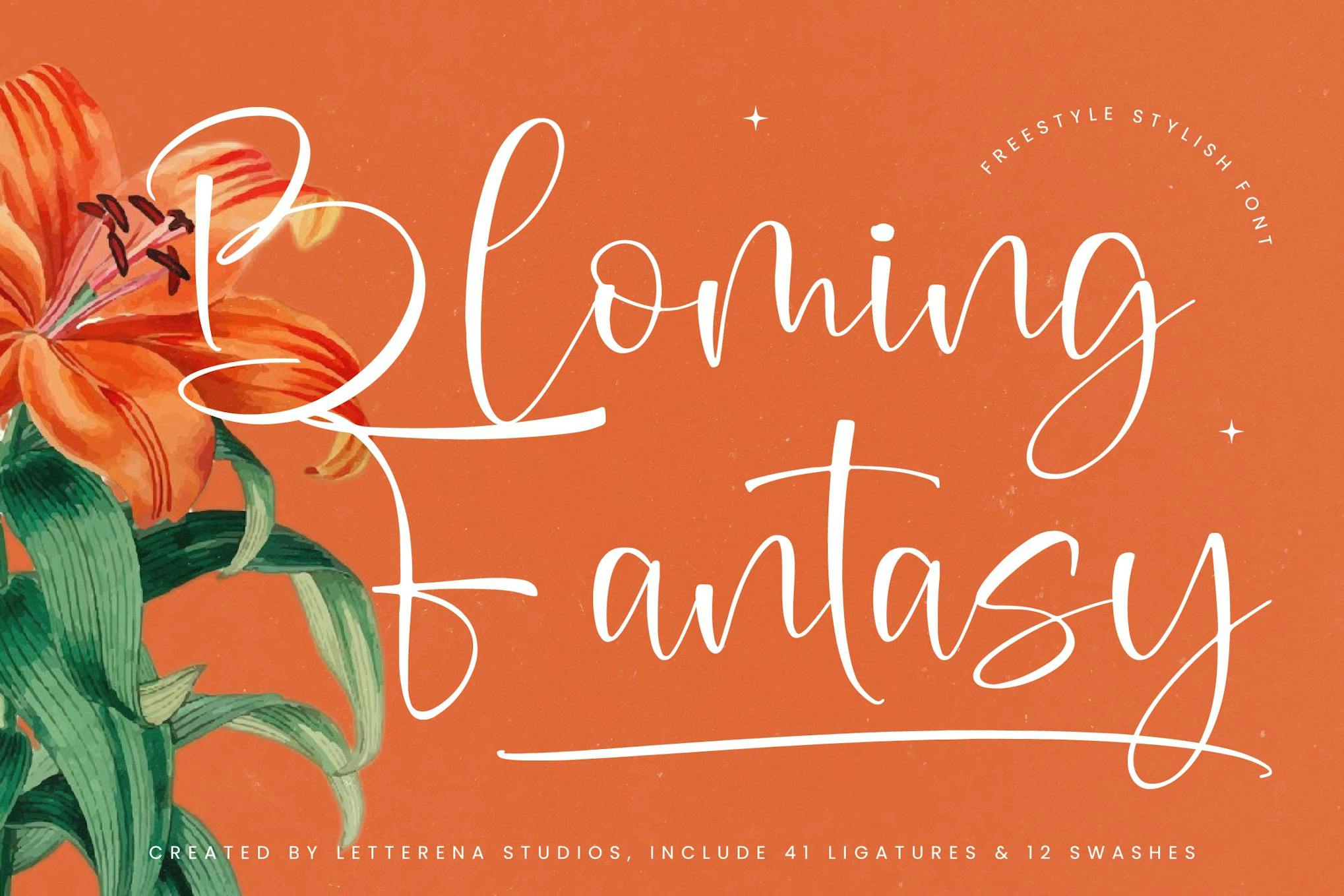
Bloming Fantasy Freestyle Stylish Font
The Bloming Fantasy Freestyle Stylish Font is perfect for magical brand identities, fantasy book covers, enchanted wedding invitations, whimsical children's products, mystical beauty brands, dreamy social media graphics, fairy tale illustrations, creative storytelling projects, imaginative art installations, and fantastical lifestyle communications.
What makes the Bloming Fantasy Freestyle Stylish Font so exciting is its enchanting combination of flowing freestyle elegance with mystical fantasy elements that creates a captivating visual experience perfect for brands seeking to communicate magic, wonder, and imaginative beauty. This mesmerizing typeface features graceful letterforms, fantastical character flourishes, and dreamy design elements that perfectly capture the essence of blooming creativity and stylish fantasy aesthetics. The font's magical personality and freestyle sophistication make it an exceptional choice for projects seeking to communicate enchantment, artistic freedom, and authentic fantasy appeal with captivating visual storytelling.
The Bloming Fantasy Freestyle Stylish Font family includes mystical variations and fantasy alternates, featuring decorative flourishes, magical swashes, and stylish character options. Each variation maintains the signature fantasy appeal while offering different levels of mystical expression and freestyle elegance, giving designers extensive creative possibilities for crafting enchanting communications and magical brand personalities that transport audiences to fantastical realms.
The graceful fantasy characteristics of Bloming Fantasy Freestyle Stylish Font showcase masterful mystical typography design, with each letter carefully crafted to flow organically while incorporating fantastical elements that enhance its magical appeal and artistic authenticity. The font's comprehensive character set includes uppercase and lowercase letters, numerals, mystical punctuation, and fantasy symbols, ensuring complete functionality for diverse magical projects and international fantasy applications.
Expertly designed for both digital and print fantasy applications, this beautiful font maintains its mystical character and freestyle elegance across various sizes and formats. From large-scale fantasy installations to delicate magical packaging designs, Bloming Fantasy Freestyle Stylish Font adapts gracefully to any enchanting design challenge while preserving its distinctive fantasy personality and stylish magical charm.